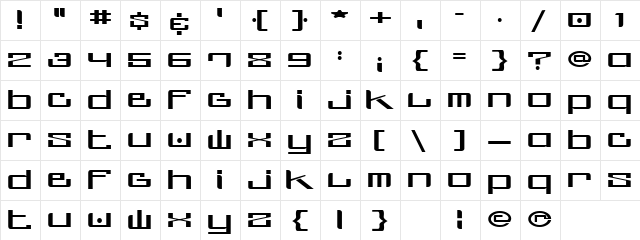
screw ups uprock
Design Context for screw ups Typeface
screw ups is a composed and adaptable typeface that performs quietly and consistently across a wide range of design contexts.